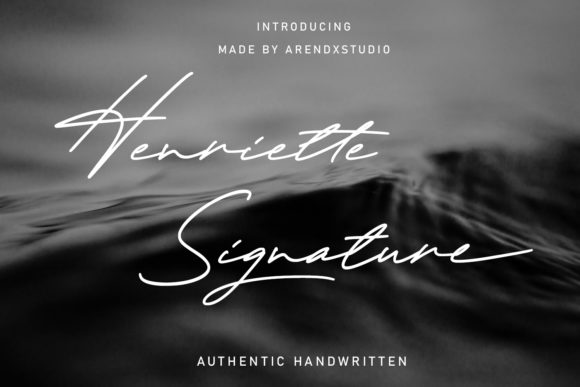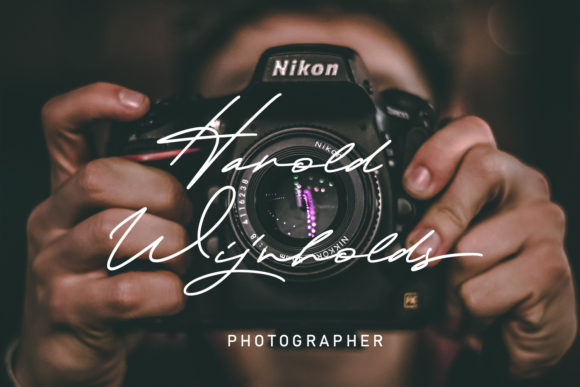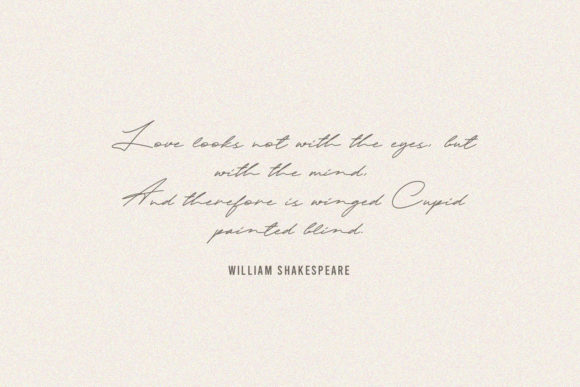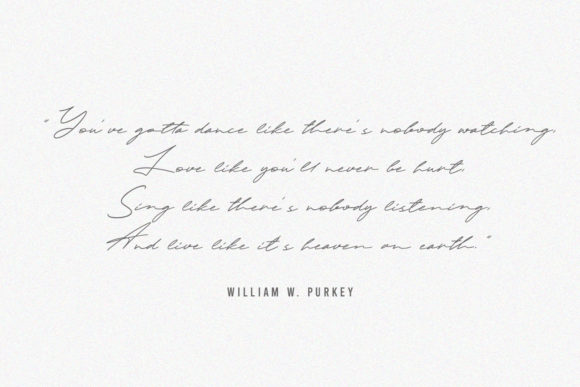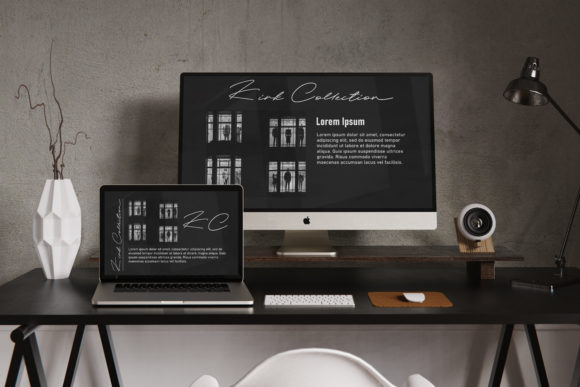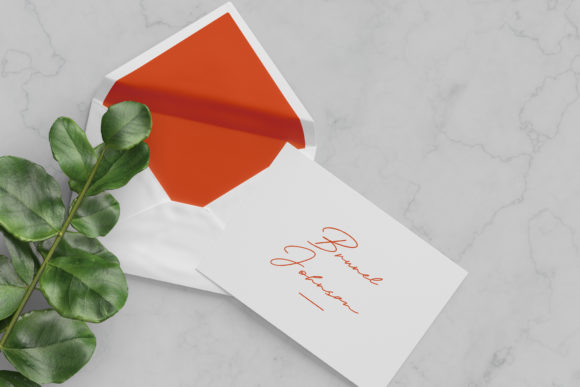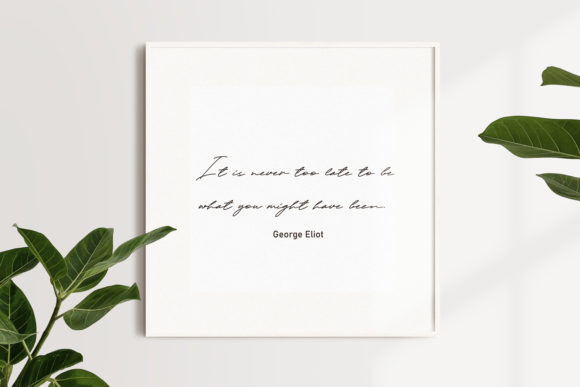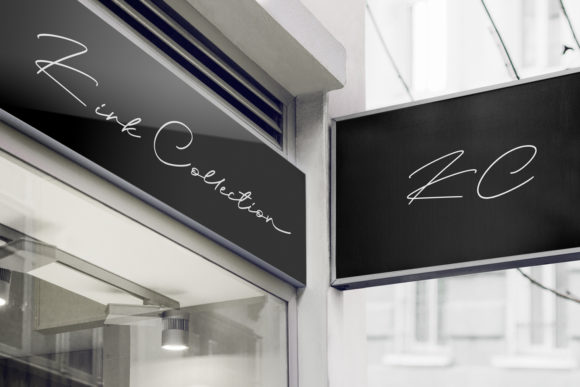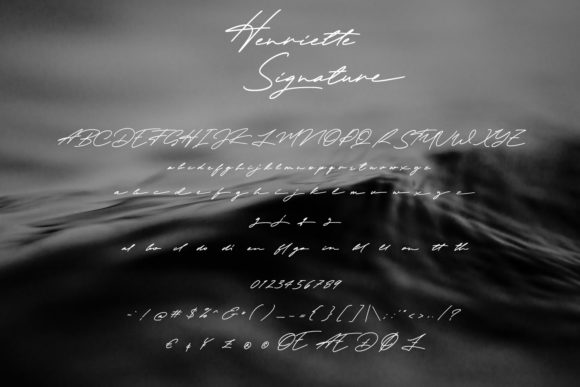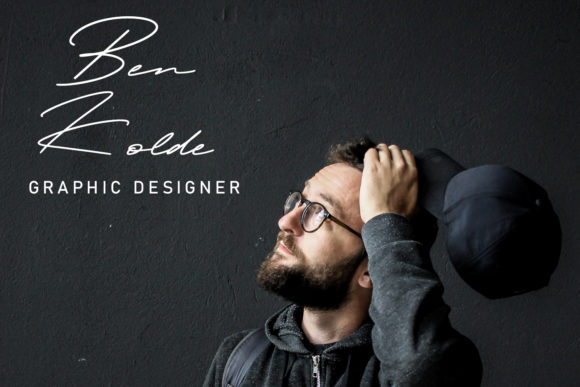
Henriette Signature Font
About Henriette Signature Font
Henriette Signature is a handwritten signature script with a natural & stylish flow. Use this gorgeous and unique font to bring any DIY project to life!